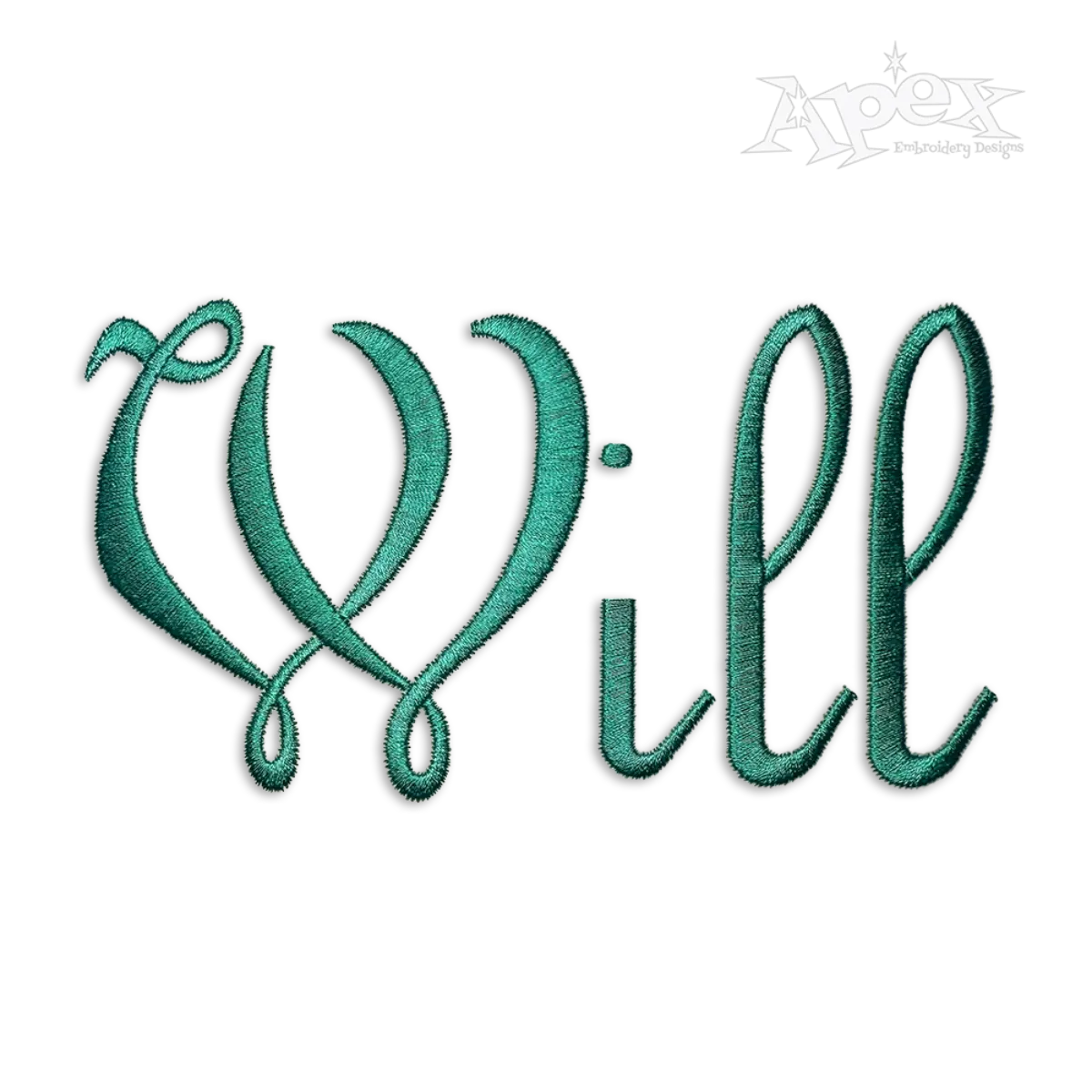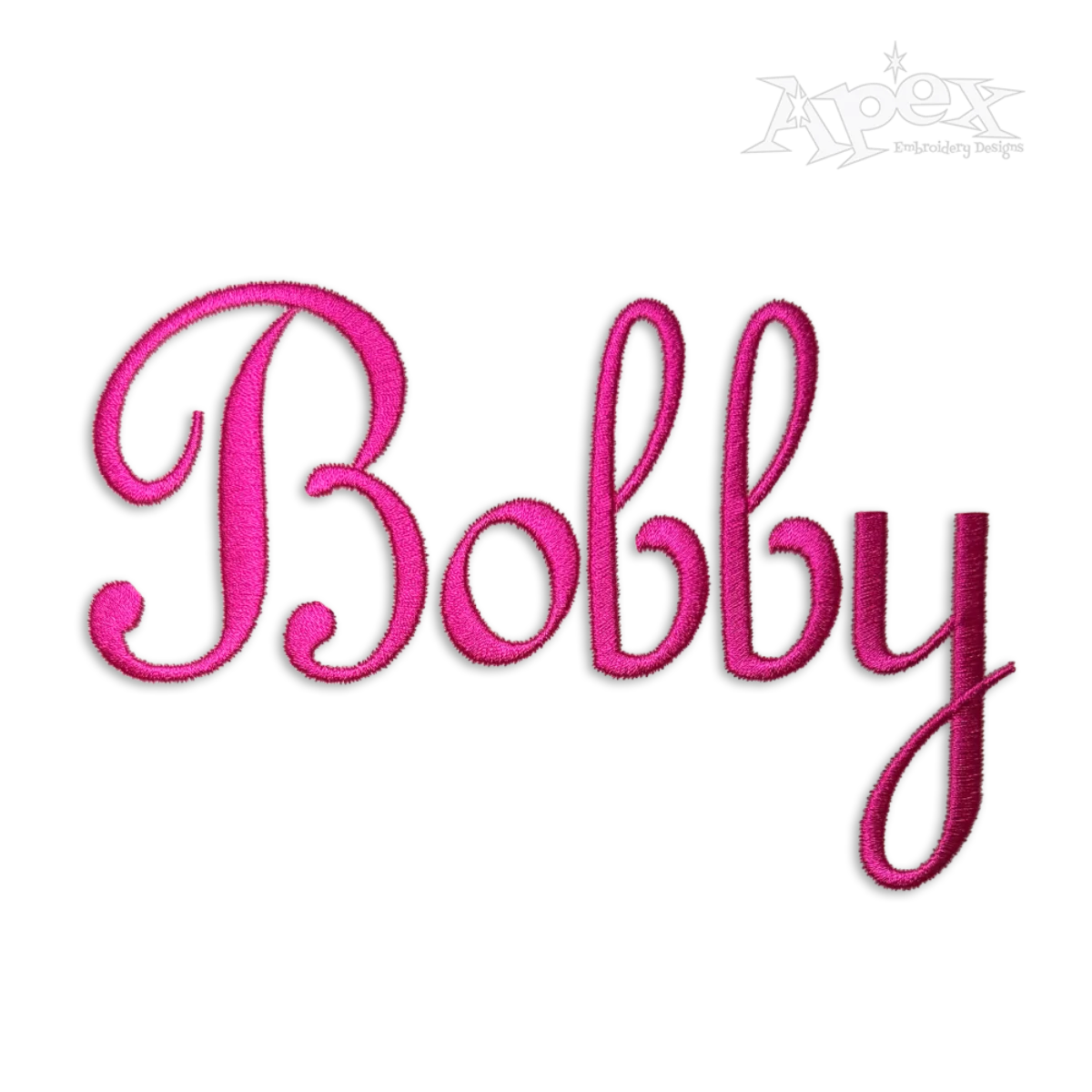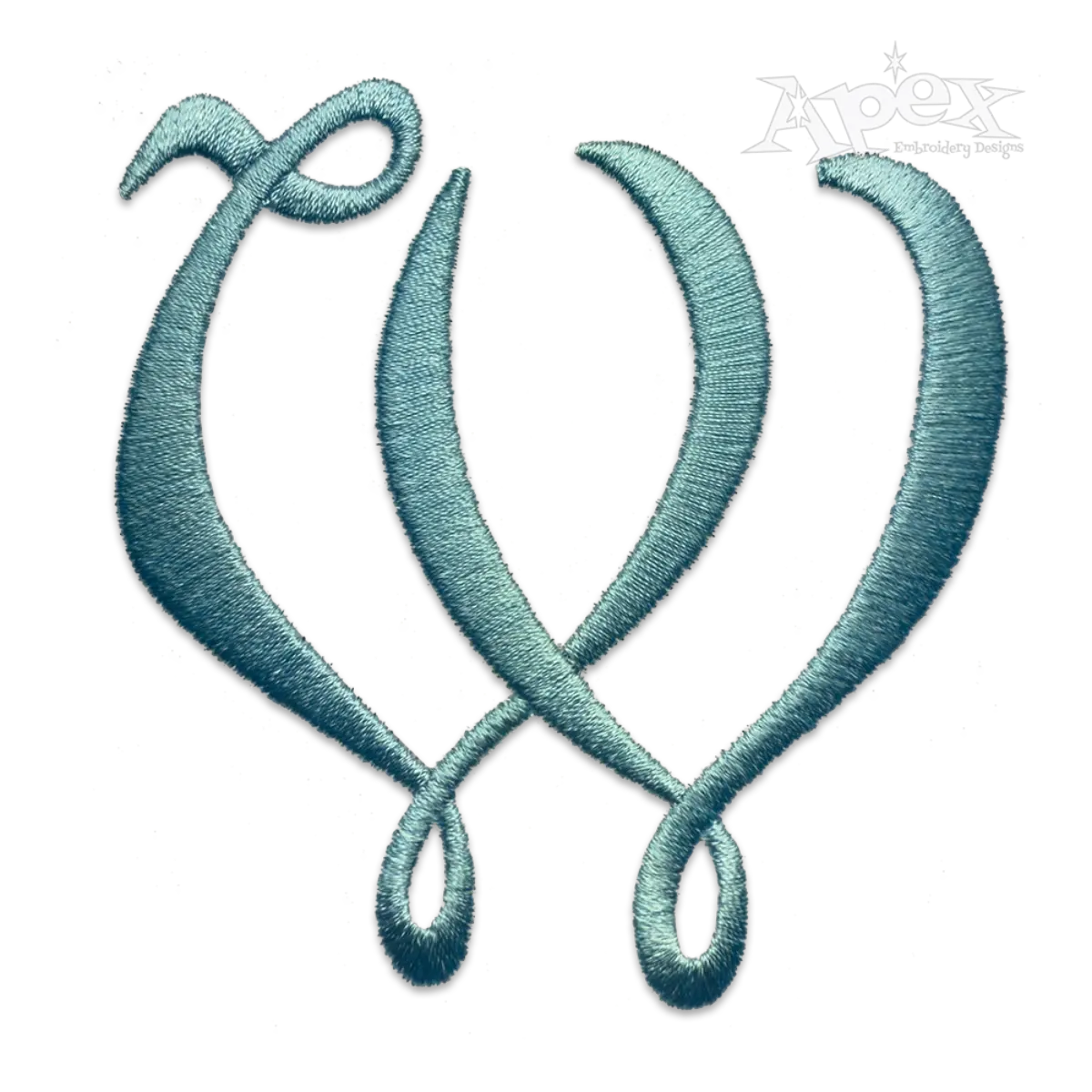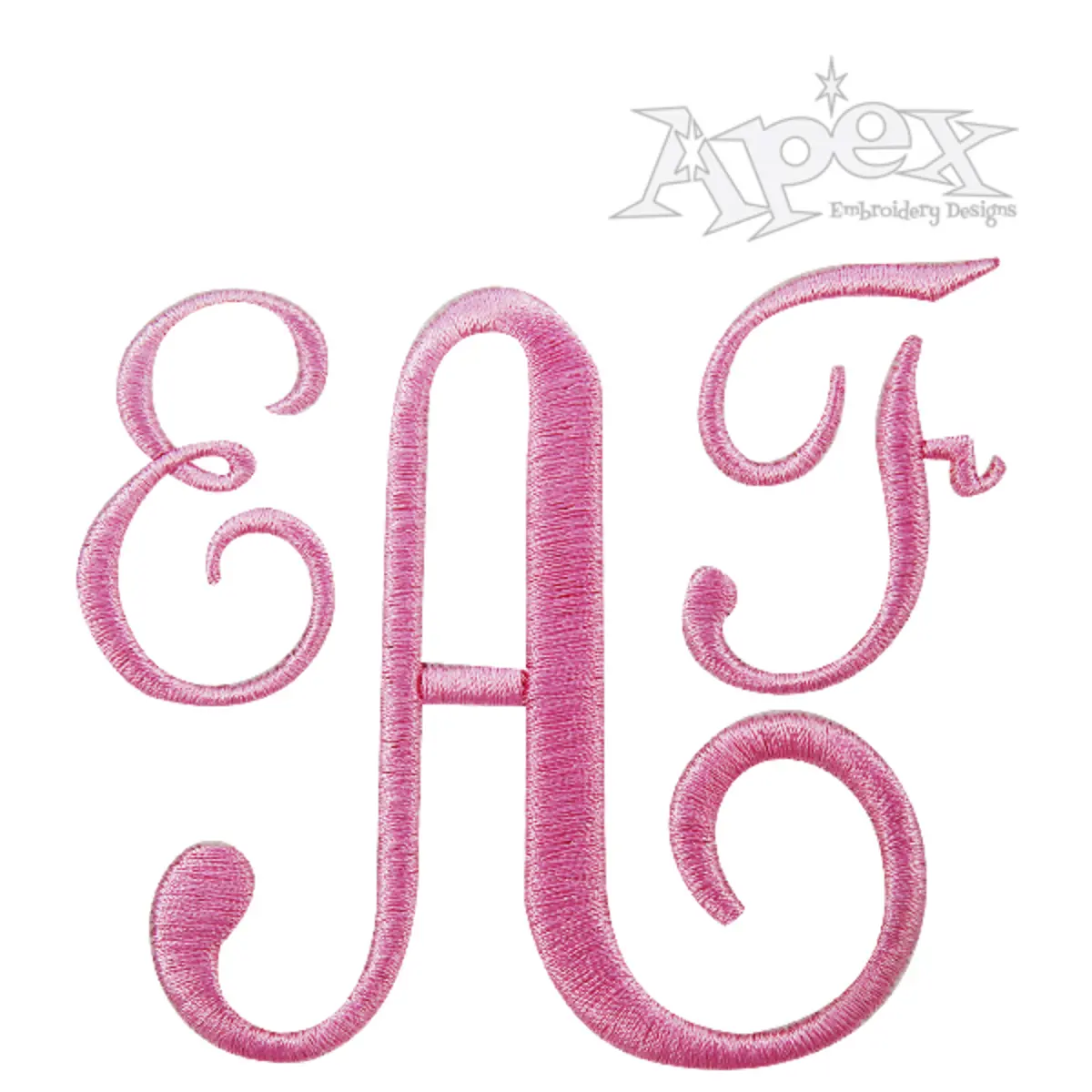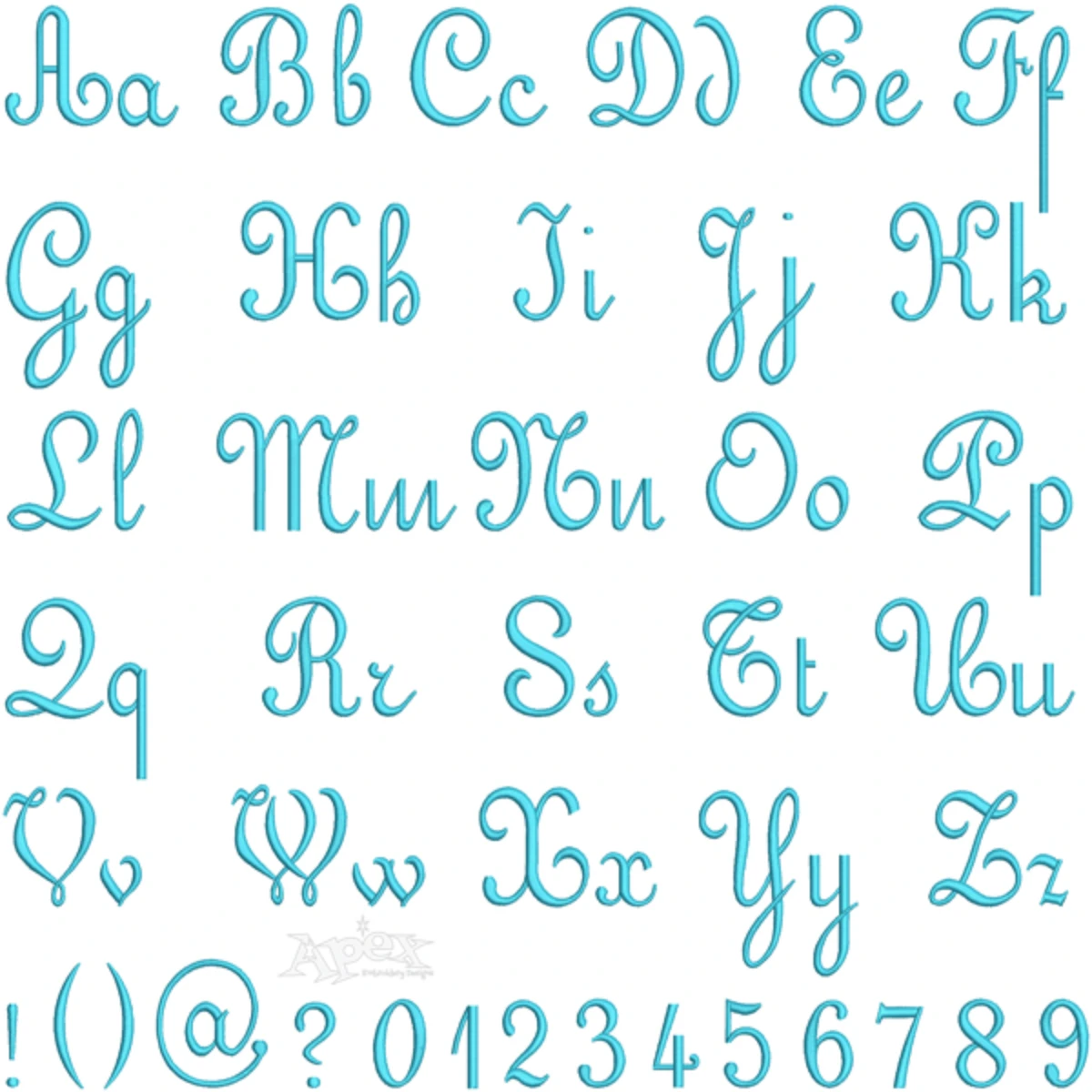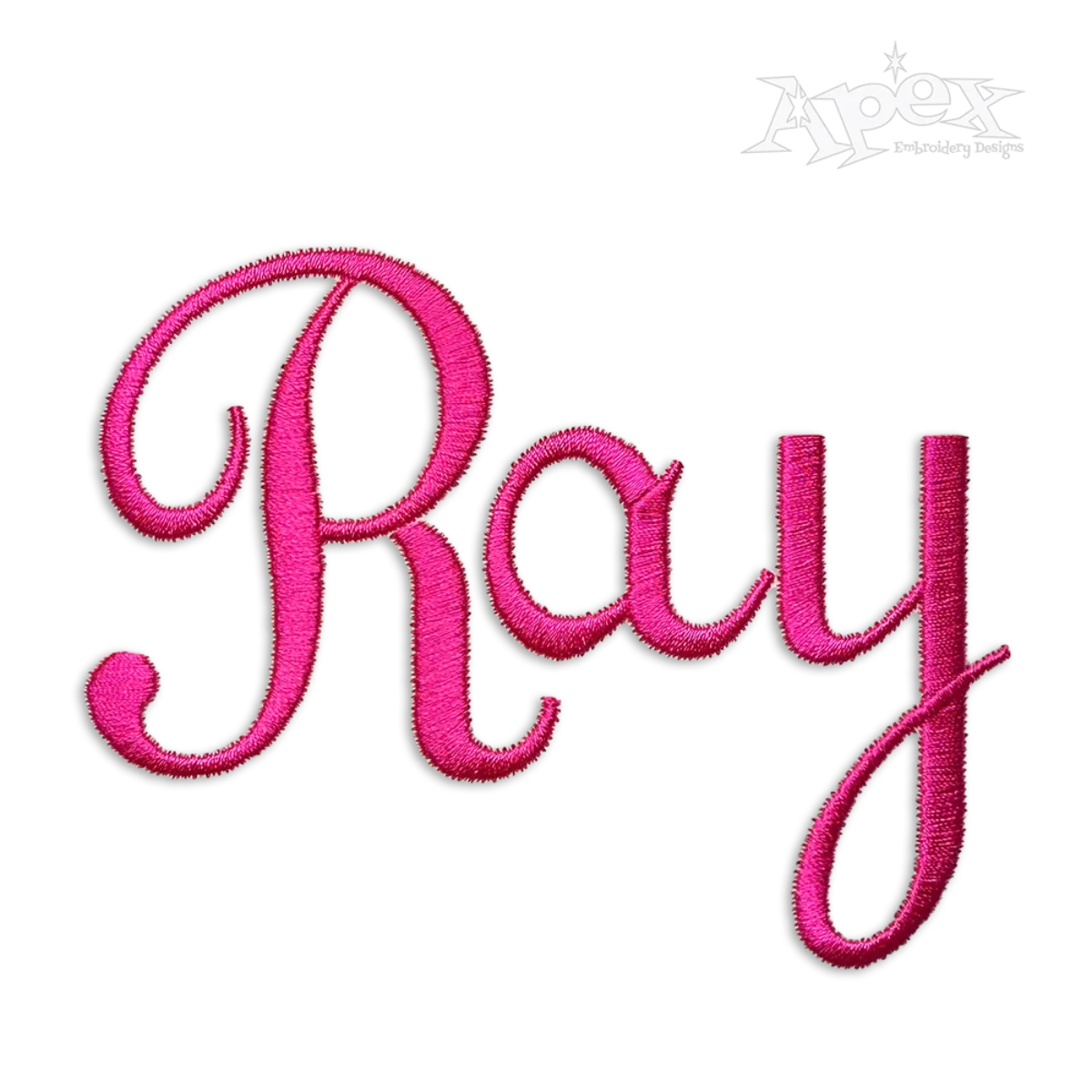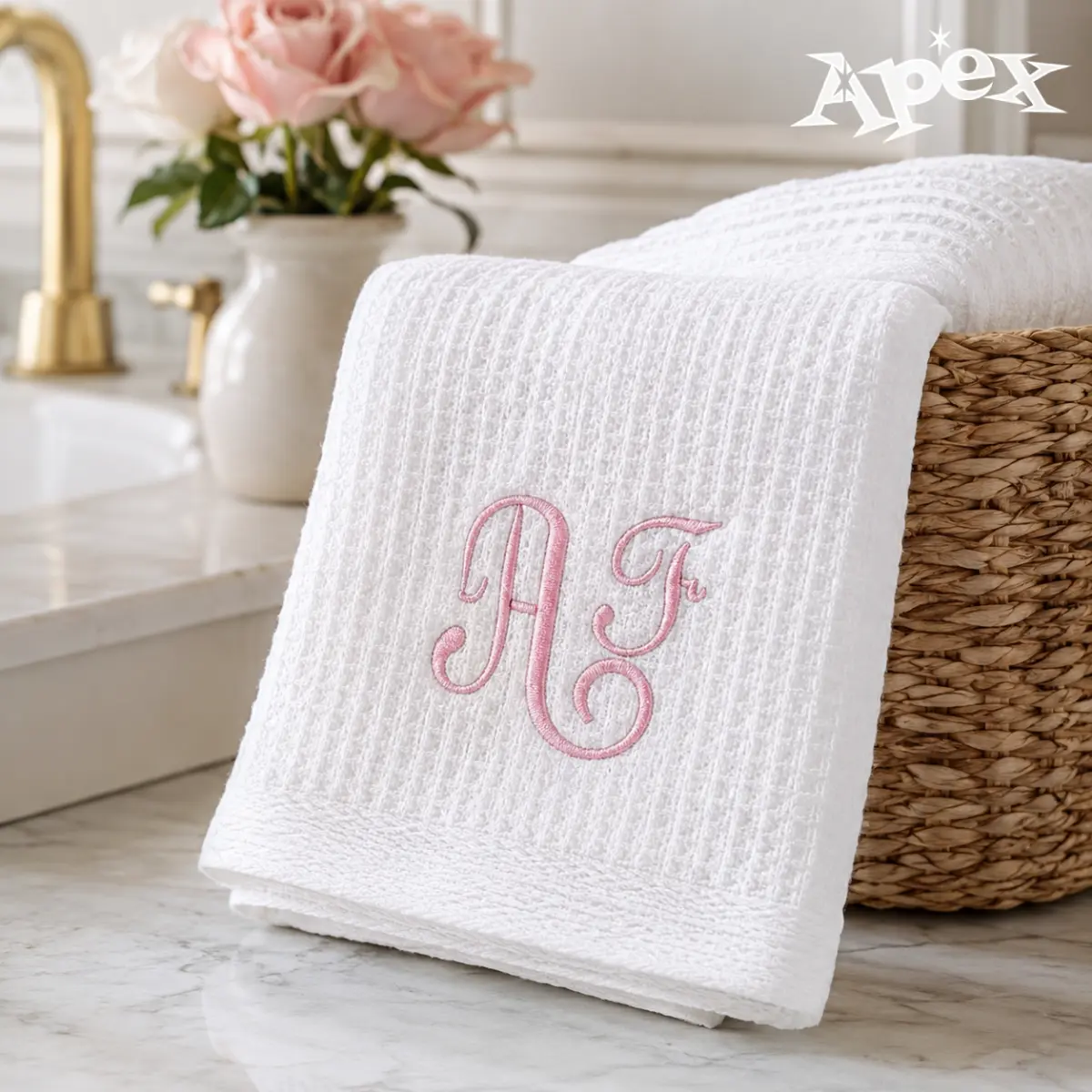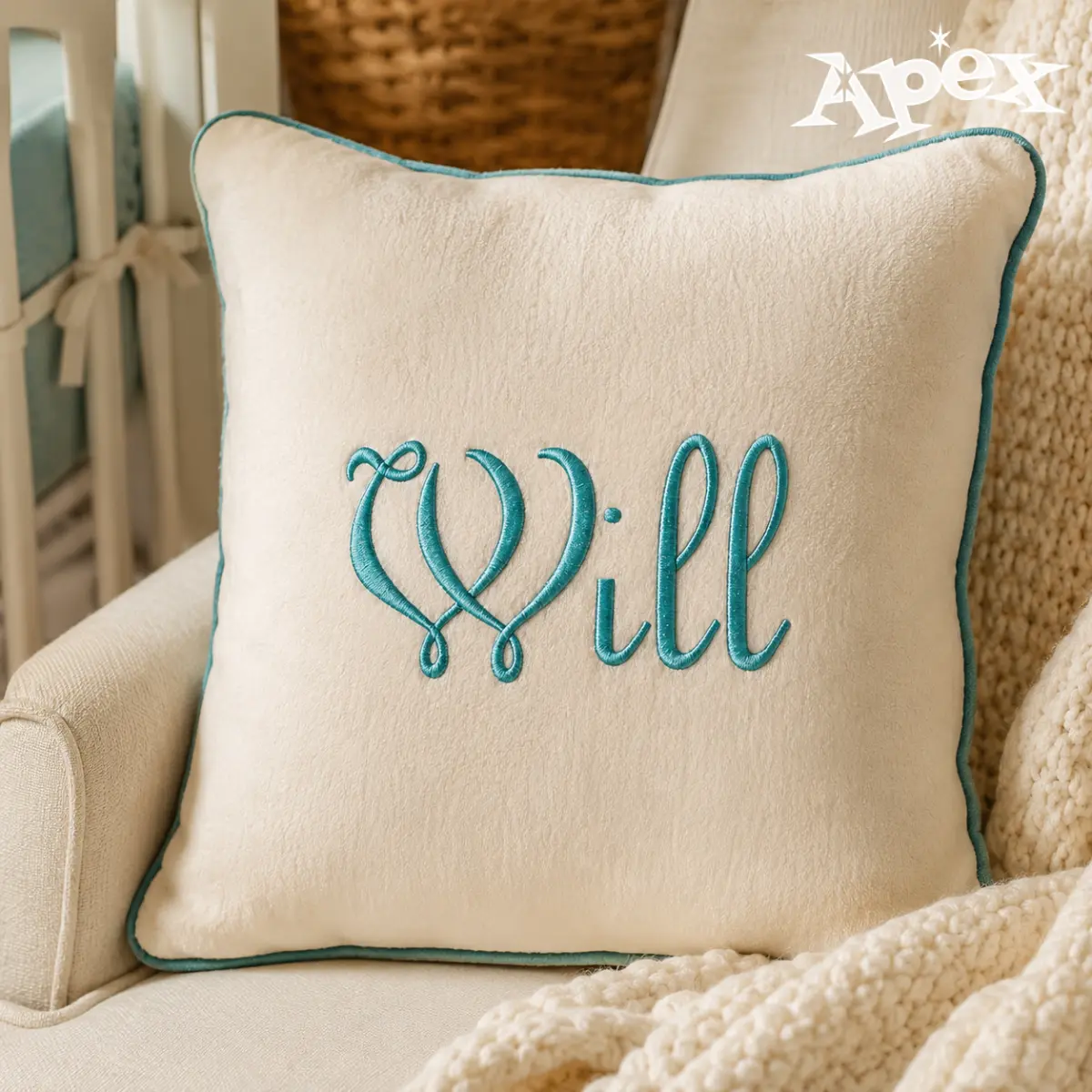
Southern Script Embroidery Font
Add a sweet Southern charm to your next embroidery project with this Southern Script Embroidery Font. This machine embroidery font features cute curly script lettering with a soft, graceful Southern-style look, making it perfect for personalized names, boutique-style embroidery, monograms, gifts,..
Perfect For
- Personalized shirts and sweatshirts
- Baby blankets and burp cloths
- Towels and robes
- Tote bags and zipper pouches
- Monogram embroidery projects
- Southern-style gifts
- Boutique embroidery items
- Home décor sewing projects
Design Features
- Cute curly script embroidery font
- Sweet Southern-inspired lettering style
- Includes uppercase and lowercase alphabet sets
- Great for names, initials, words, and custom text
- Smooth machine embroidery stitching